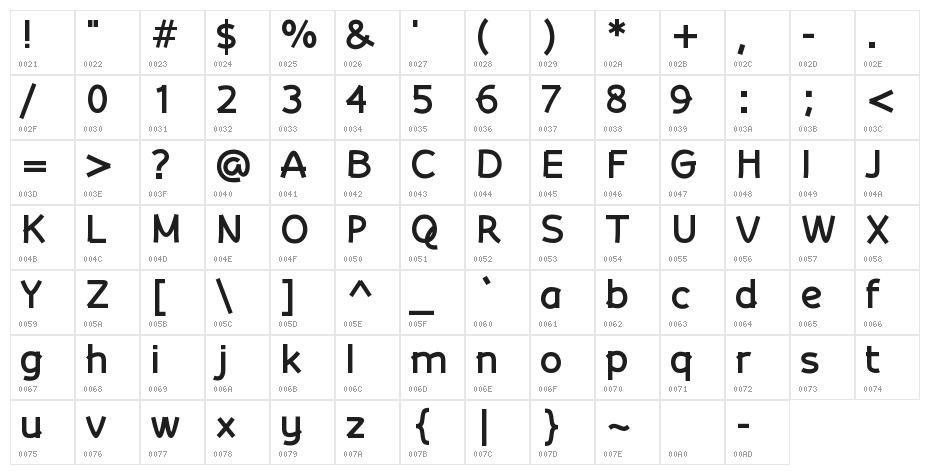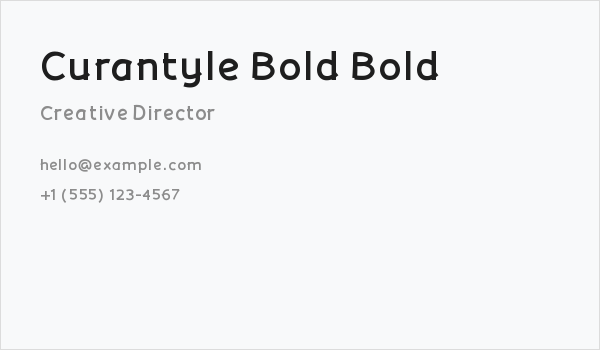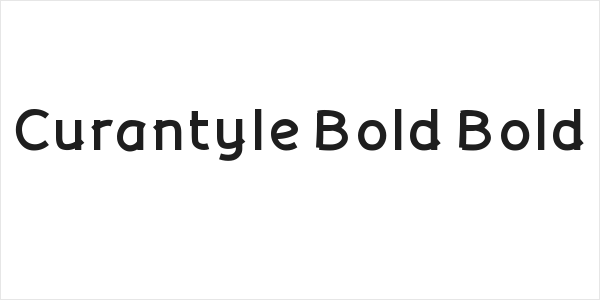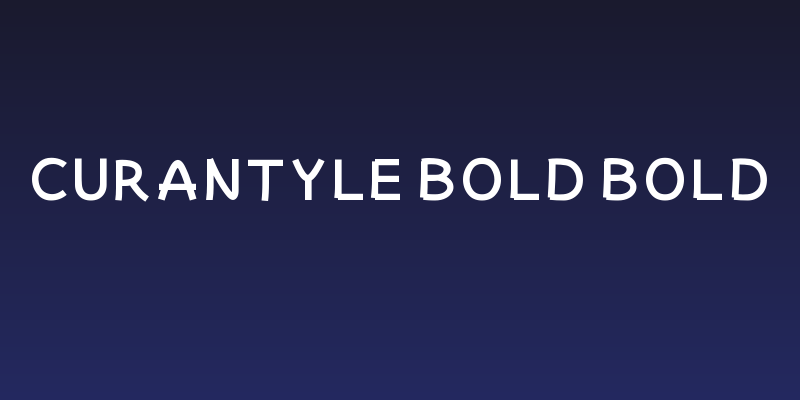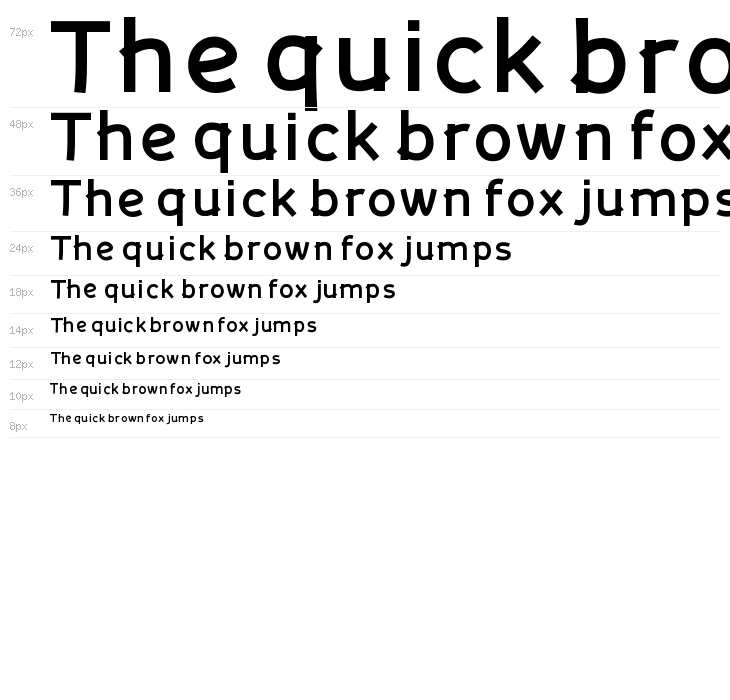
Curantyle Bold Bold Font
Curantyle Bold Bold Description
This font features a bold and modern design with clean, geometric lines that create a strong visual impact. The uppercase letters are uniform in height, providing a sense of balance and stability. The lowercase letters maintain a consistent style, with rounded edges that soften the overall appearance. The numerals are clear and easily distinguishable, making them suitable for various applications. Special characters are well-integrated, maintaining the font's cohesive look. This font's boldness and clarity make it ideal for attention-grabbing headlines and titles.
| Proposed Projects | Ideal for branding, advertising, posters, and web design where a strong visual presence is needed. |